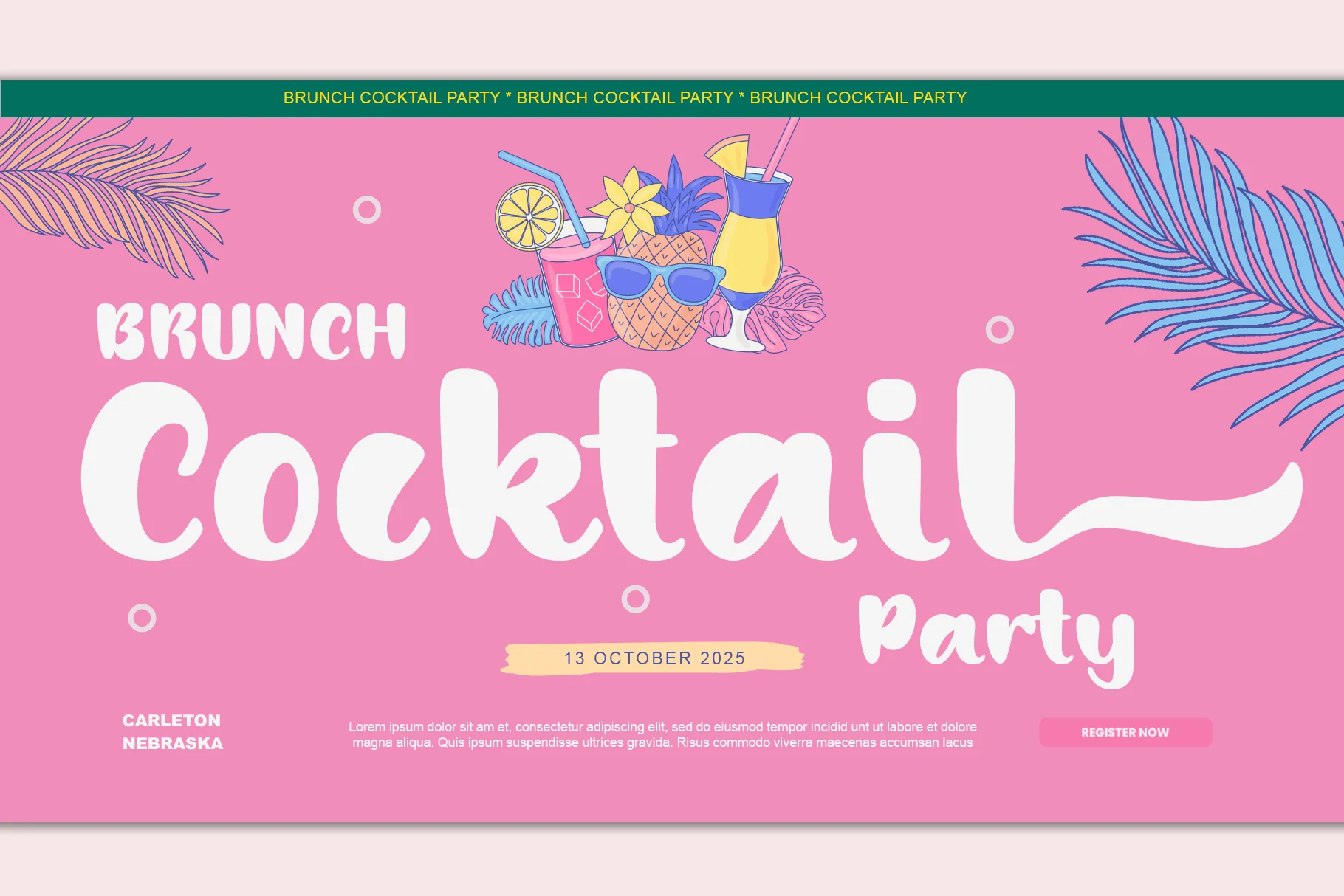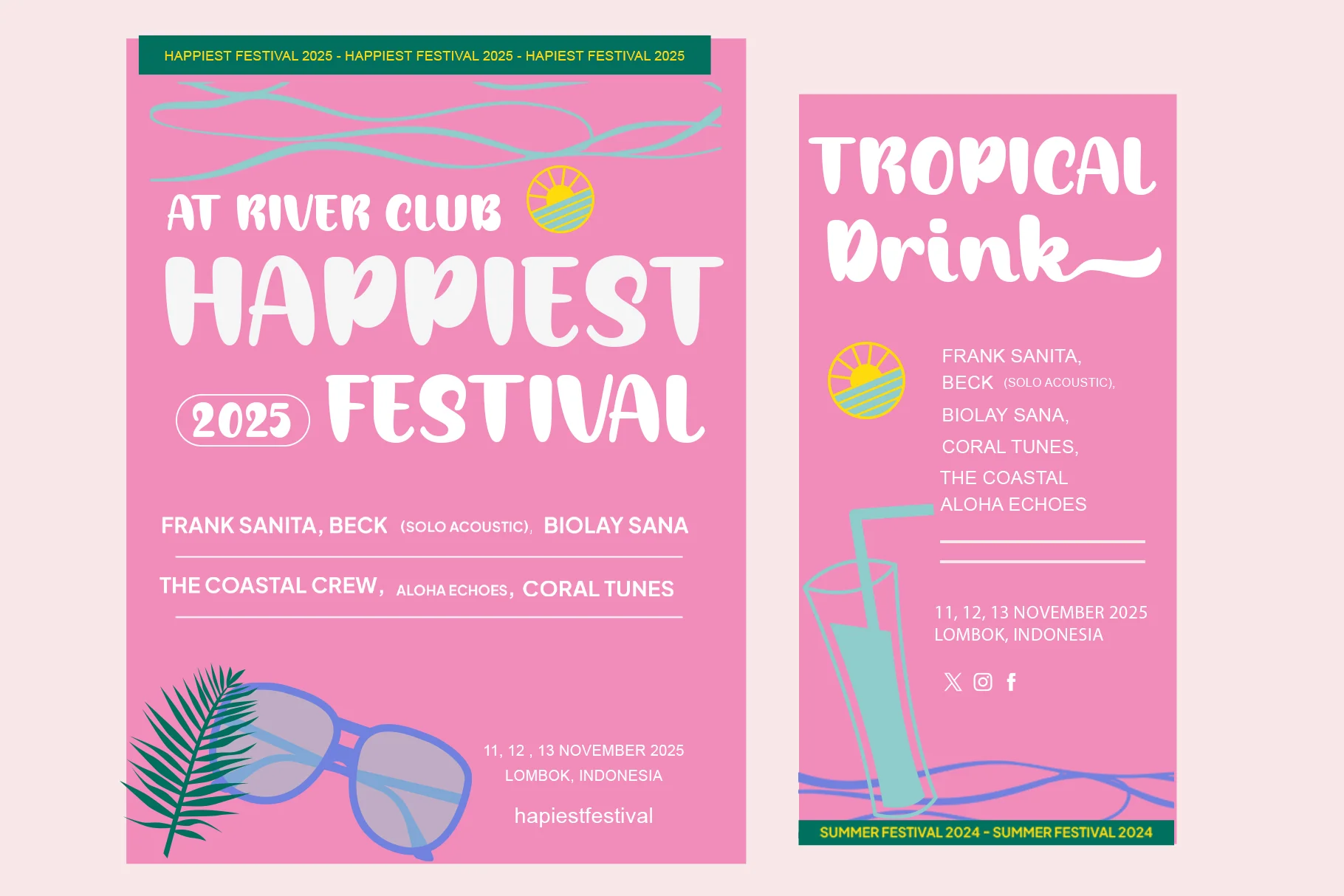
Sweet Candy
The "Sweet Candy" font is a decorative typeface that perfectly embodies a sweet, cheerful, and delightful aesthetic.It utilizes extensive swashes or elongated, curved ornaments.It is ideal for designs related to sweet treats (candies, cakes, drinks), beauty product branding, children's packaging, party invitations, cheerful social media graphics, and headers that aim to capture attention with a unique, sugary touch.